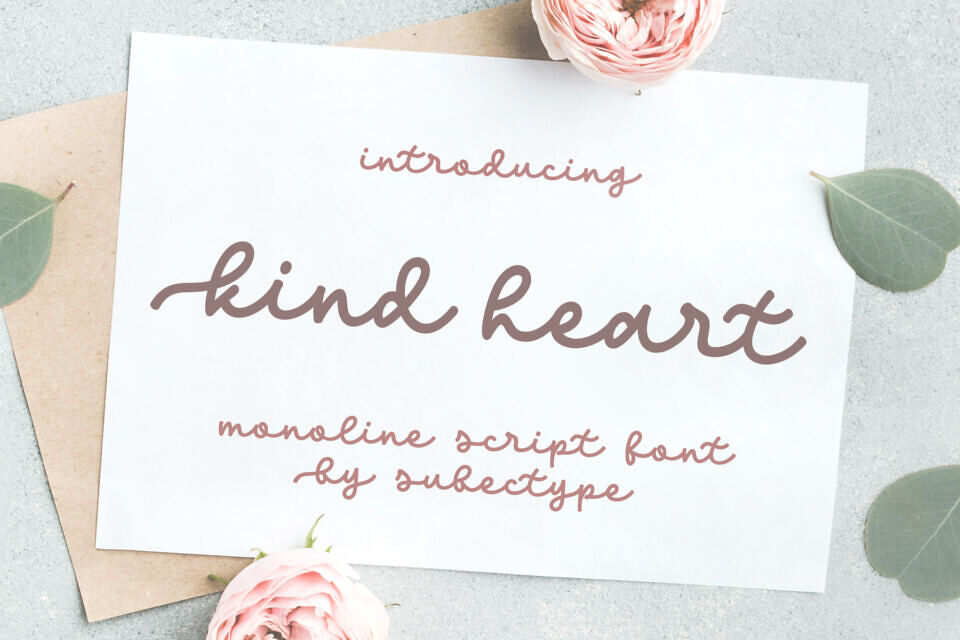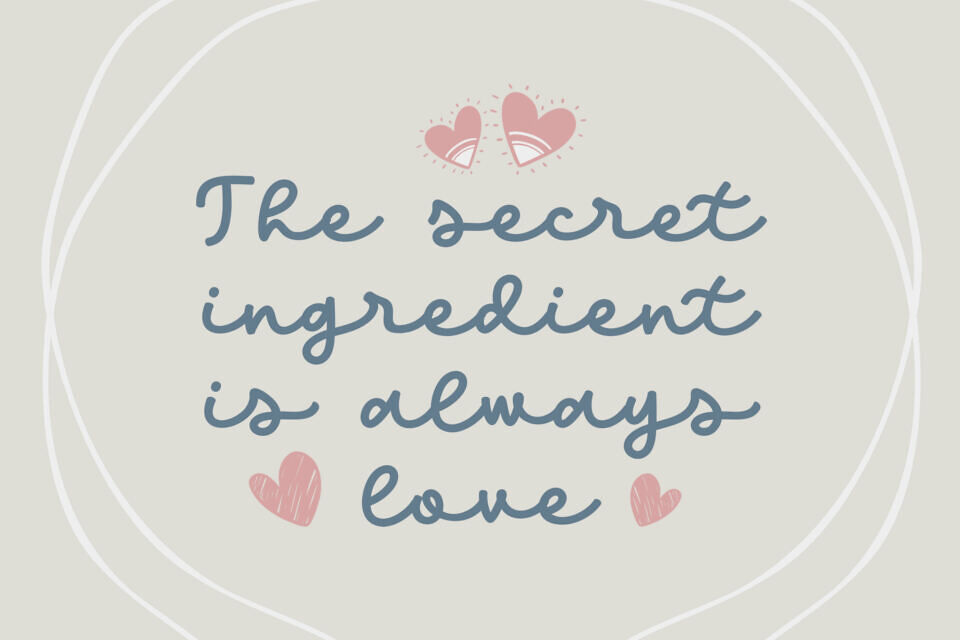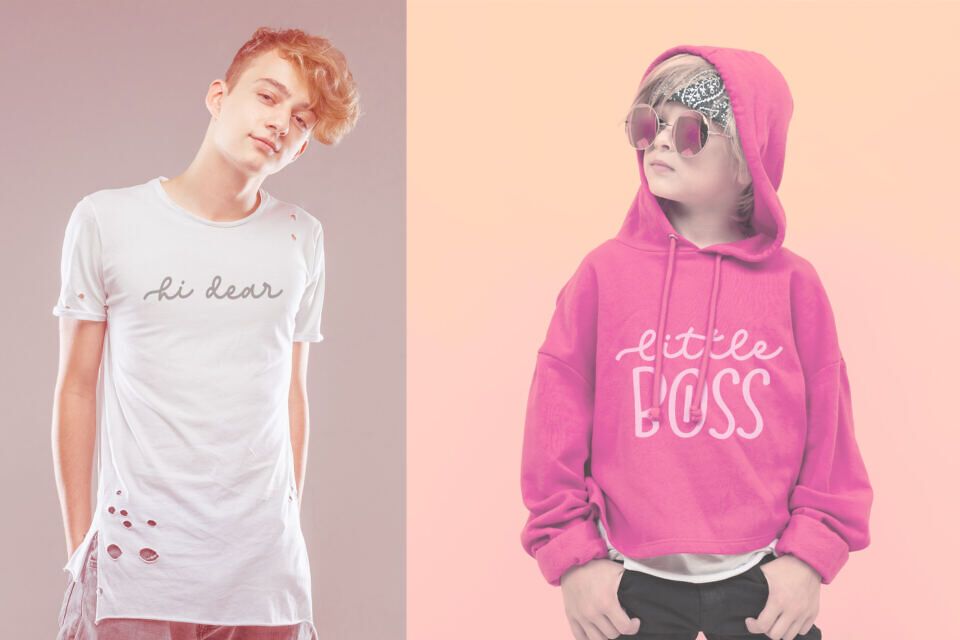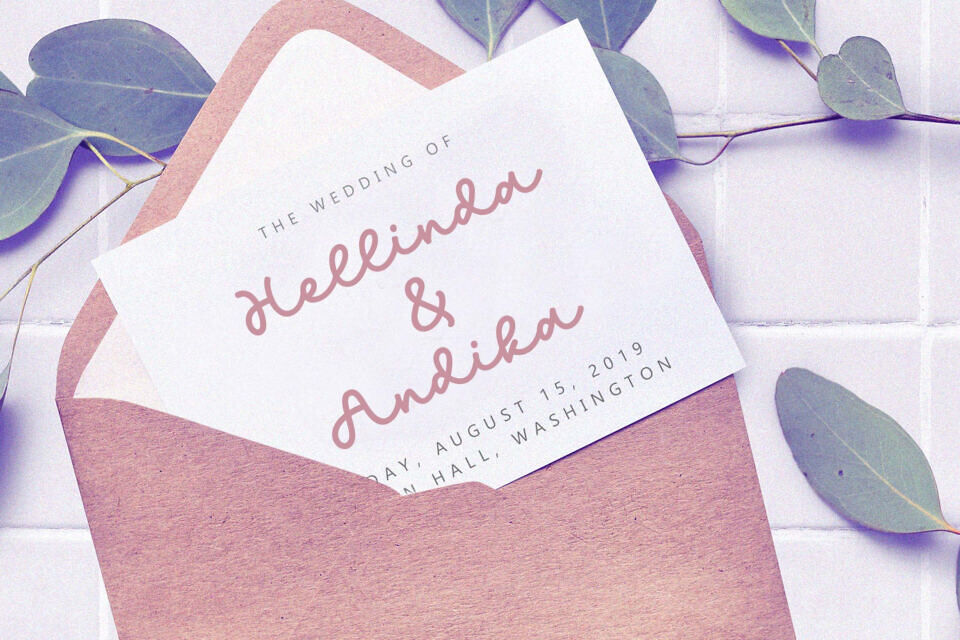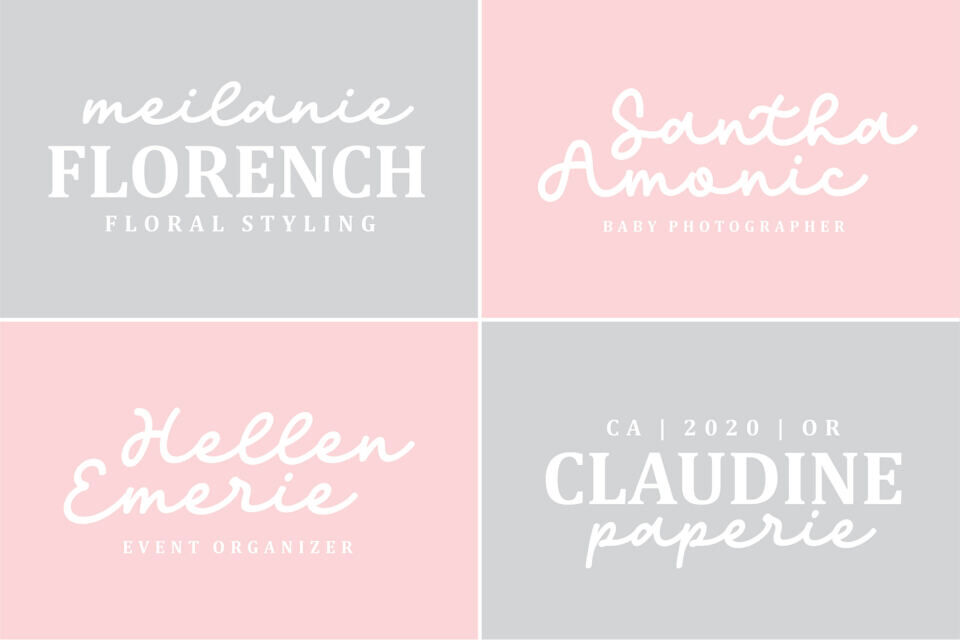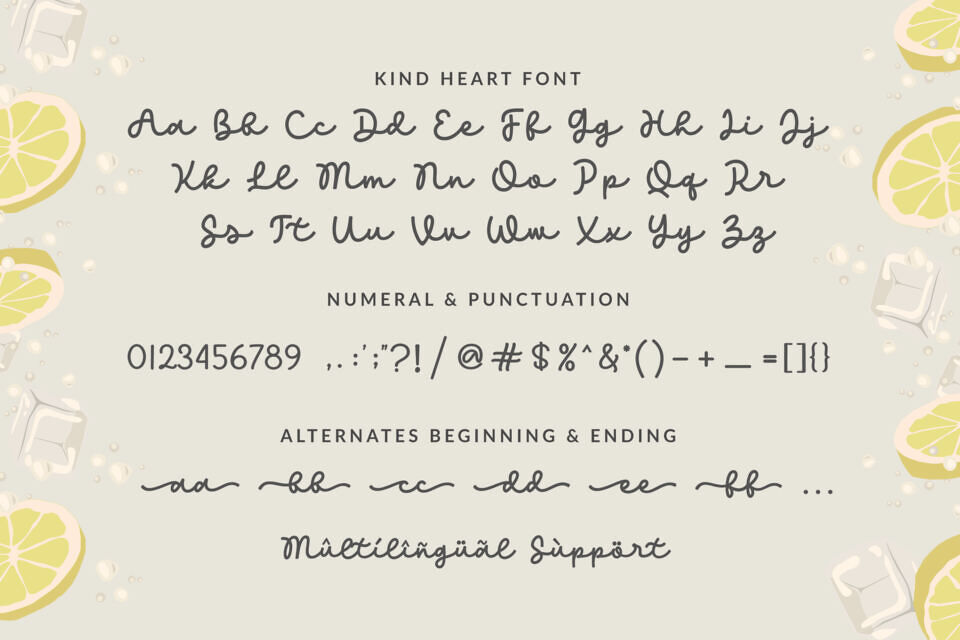
Kind Heart Font
Kind Heart is a monoline script font with an cute style. It has good readability and is perfect for logos, invitations, wedding, signatures, and much more!
The font is PUA encoded which means you can access all of the glyphs and swashes with ease! It features a varying baseline, smooth lines, gorgeous glyphs and stunning alternates. The simple and flowing style of Kind Heart, effortlessly adds a romantic look to any craft idea.